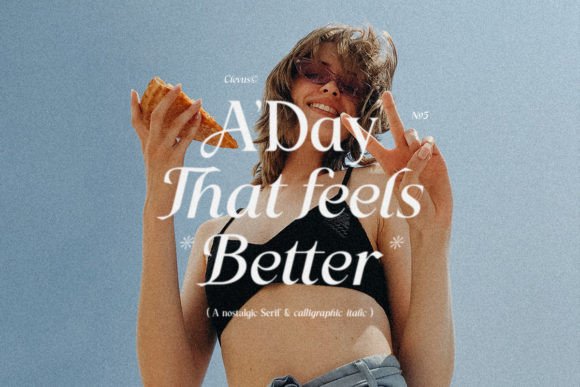
Introducing A Day That Feels Better Font, the epitome of nostalgic and modern elegance. As an E-commerce SEO expert, I am thrilled to present this extraordinary serif font to elevate your projects to new heights. Created by the talented Clevus, this font is the perfect choice for those seeking the best text font for weddings and beyond.
With its uncommon calligraphic design, A Day That Feels Better Font exudes a sense of sophistication and refinement. Each letter is carefully crafted to reflect a bygone era, evoking feelings of nostalgia and charm. Imagine the enchanting beauty of delicate, hand-drawn letters adorning your wedding invitations, stationery, or even personal artwork. This font is bound to leave a lasting impression on your audience.
What sets A Day That Feels Better Font apart is its ability to effortlessly blend tradition with a modern twist. It seamlessly merges classic calligraphy with contemporary aesthetics, resulting in a truly captivating visual experience. The perfect balance of old and new, this font breathes life into your designs, making them truly timeless.
But that's not all – A Day That Feels Better Font offers unparalleled versatility and ease of use. Thanks to its PUA encoding, accessing all characters and ligatures has never been simpler. Let your creativity run wild as you experiment with various letter combinations and typographic elements. Watch as this font transforms your ideas into masterpieces that demand attention.
Whether you're a professional designer or a DIY enthusiast, A Day That Feels Better Font is here to elevate your projects beyond imagination. Its elegant appeal is perfect for wedding invitations, love letters, heartfelt quotes, or any project that requires a touch of sophistication. Let this font be your secret weapon, effortlessly enhancing the beauty and impact of your creations.
In summary, A Day That Feels Better Font is more than just a typeface – it's an experience. Its nostalgic charm, modern twist, and effortless versatility make it the ultimate choice for anyone seeking to create captivating designs. Let your imagination soar, and watch as this font breathes life into your most innovative ideas. Download A Day That Feels Better Font today and embark on a journey of timeless elegance.